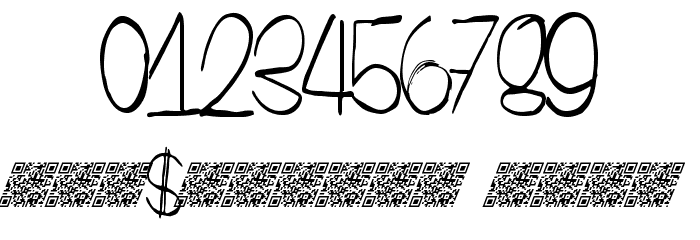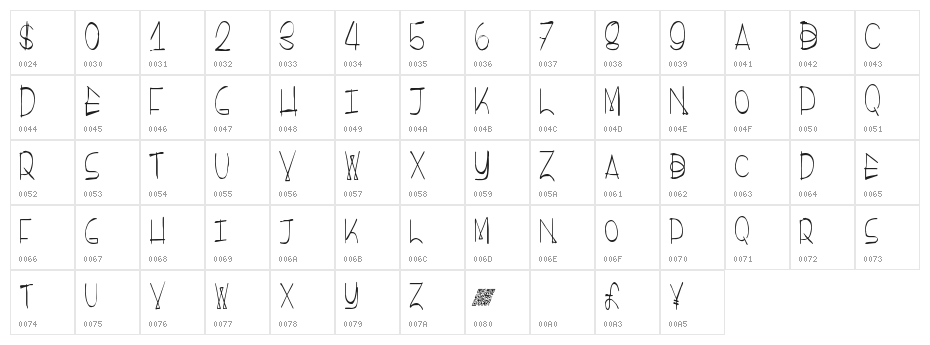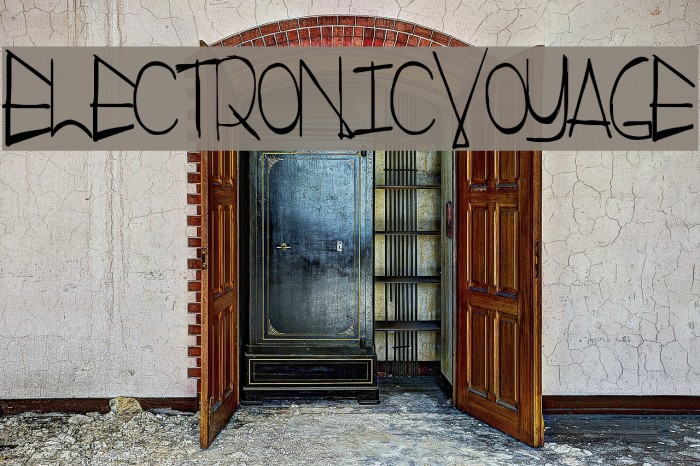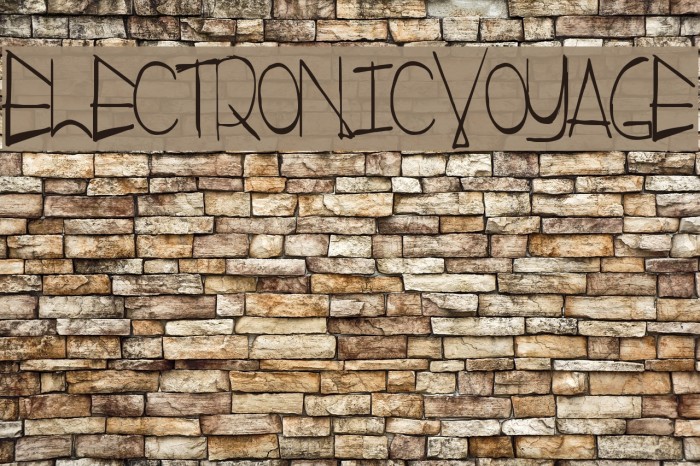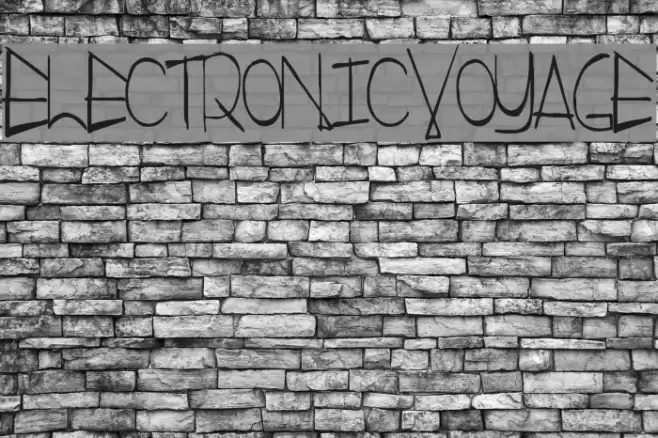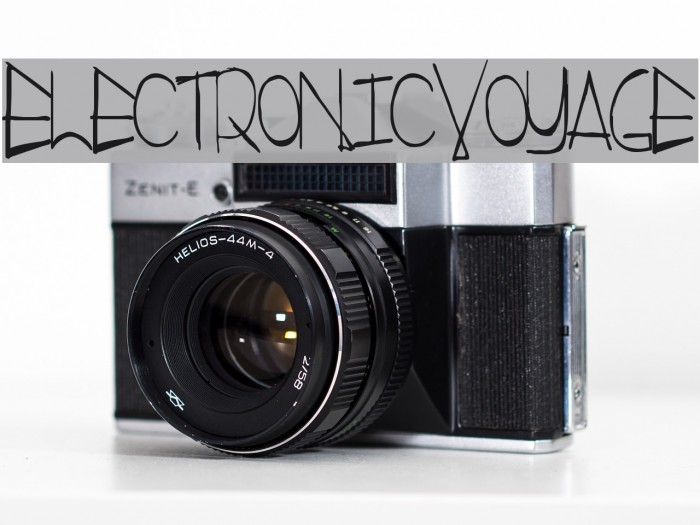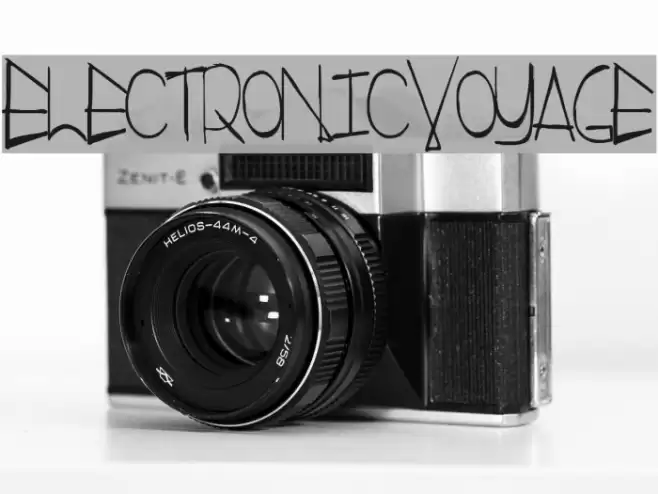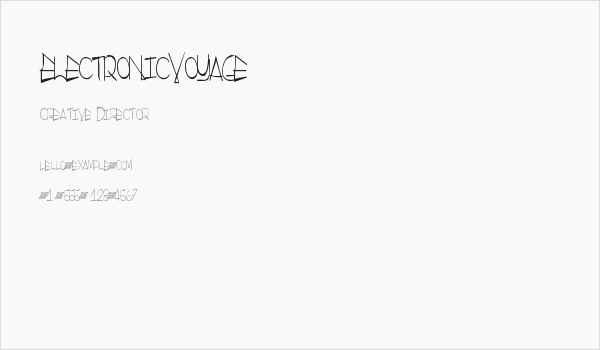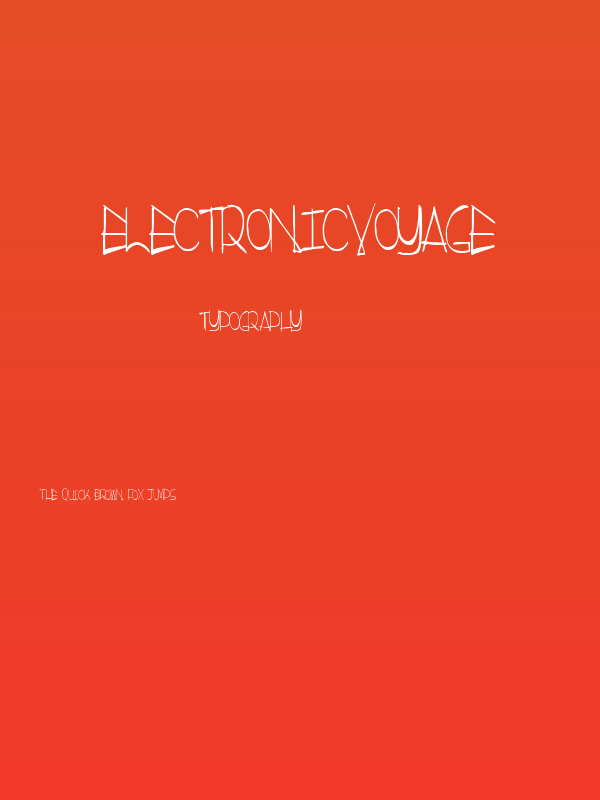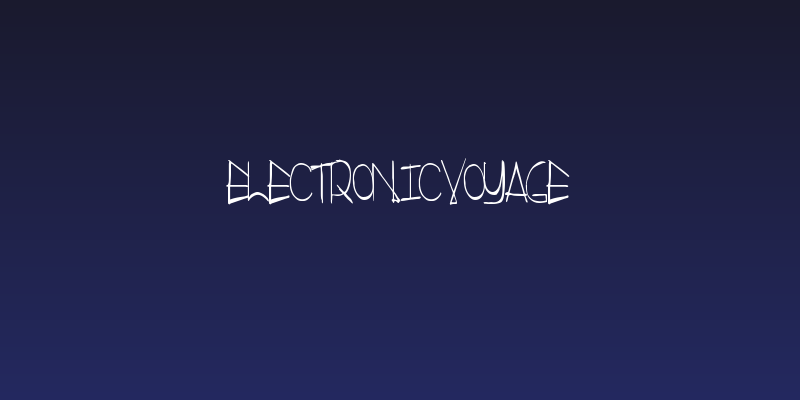
ElectronicVoyage Font
ElectronicVoyage Description
This font features a unique, hand-drawn style with a modern twist. The characters are elongated and have a playful, artistic flair, with some letters incorporating geometric elements. The strokes are uneven, giving it a casual and dynamic appearance. The uppercase and lowercase letters maintain a consistent style, while the numbers and special characters complement the overall design. This font is ideal for projects that require a creative and unconventional look, offering a fresh and engaging visual experience.
| Proposed Projects | Ideal for creative projects such as posters, album covers, branding for artistic ventures, or any design requiring a unique and modern touch. |